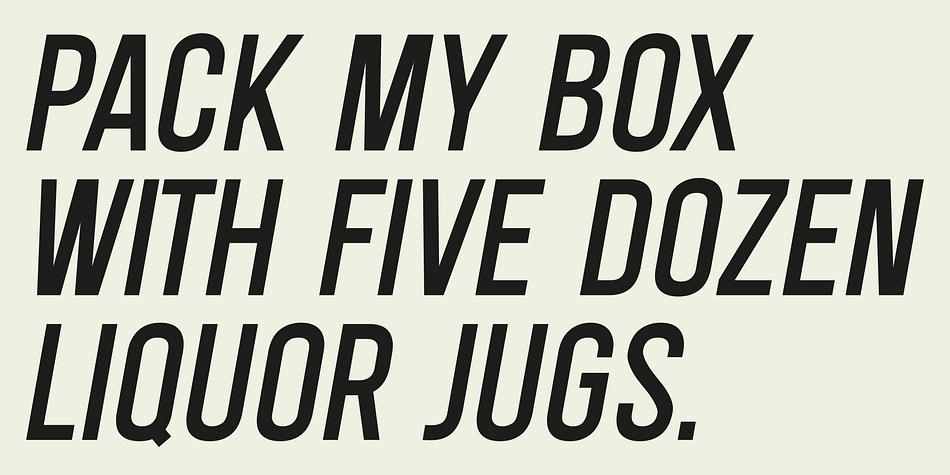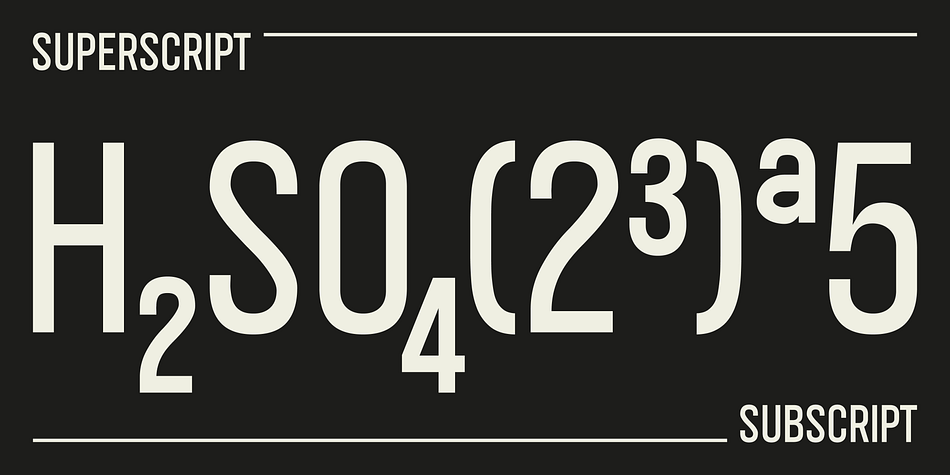
SK Merih
Designed by Salih Kizilkaya, SK Merih is a sans serif font family. This typeface has twelve styles and was published by Salih Kizilkaya.
SK Merih is a geometric sans serif and semi-condensed font family. Produced with a clean and modern design approach, SK Merih can be easily used in titles, body texts and many points you may need in design.
SK Merih takes its name from Mars. Although Merih is not used today, it is the Turkish equivalent of Mars.
SK Merih consists of 12 fonts and 5244 glyphs in total and has multilingual support. In this way, it contains all the typographic elements you will need in your designs.